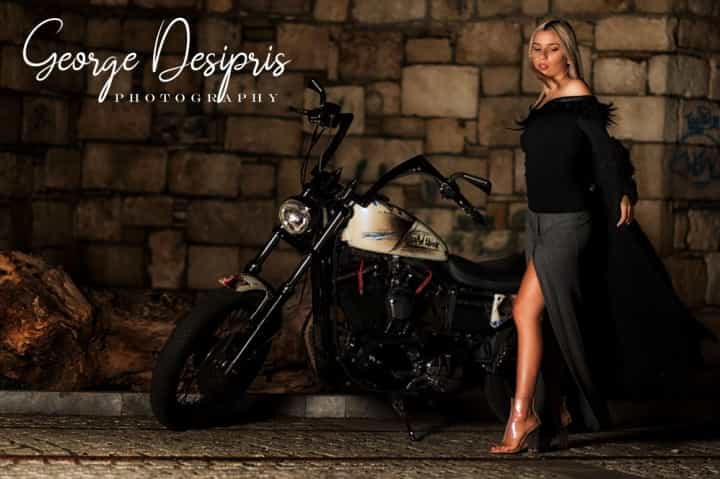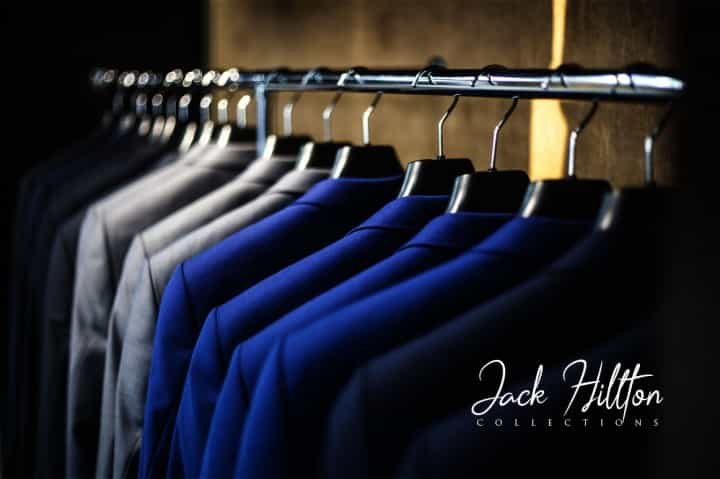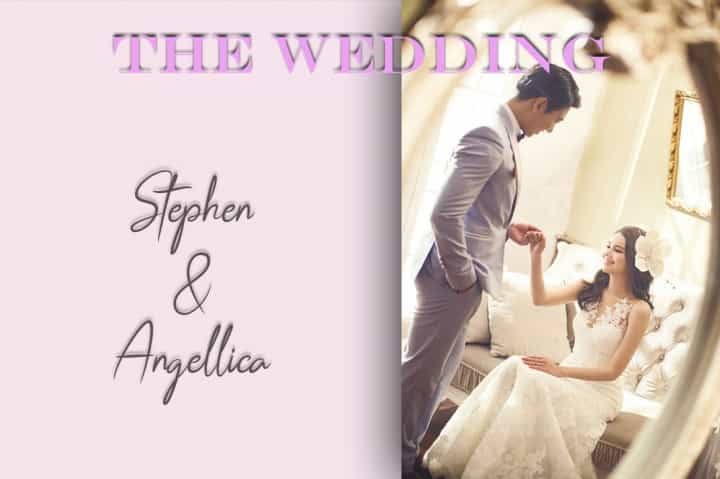
Discover Bucharest Script Font, part of the Brush Calligraphy Handwritten collection—a versatile and unique font perfect for adding a personal touch to your projects. Download it for free and enjoy crafting designs with style, from invitations to social media posts. This font is available exclusively for personal use, giving you the freedom to create without limits. Unlock your creativity with Bucharest Script Font today!
It is an amazing brush font by bluestudio that can be used in logos and branding, invitations, wedding invitations, advertisements, social media posts, packaging of products, design labels, photo watermark, and other special occasions or any project that needs handwriting.